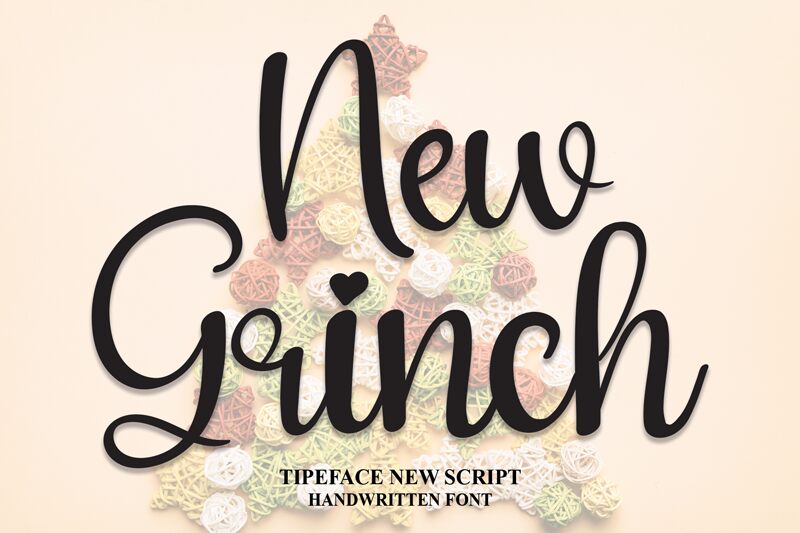
New Grinch
New Grinch is a captivating handwritten font that exudes a playful, whimsical charm. Crafted by renowned designer Andi Moz, this font seamlessly blends fluid, organic curves with sharp, angular strokes, creating a delightful contrast that instantly captures the eye. The unique letterforms, reminiscent of a child's handwriting, lend a sense of warmth and personality to any design, making it an ideal choice for greeting cards, invitations, and editorial layouts.
New Grinch's versatility shines through, as it can effortlessly transition from playful and inviting to sophisticated and elegant, depending on the overall design aesthetic.